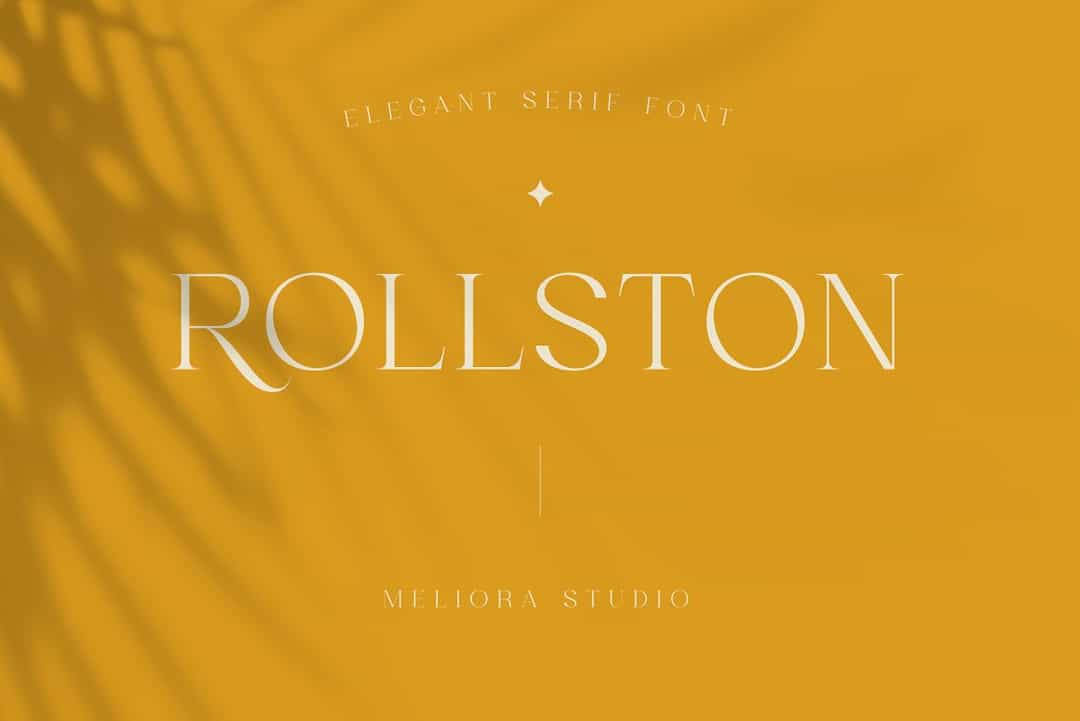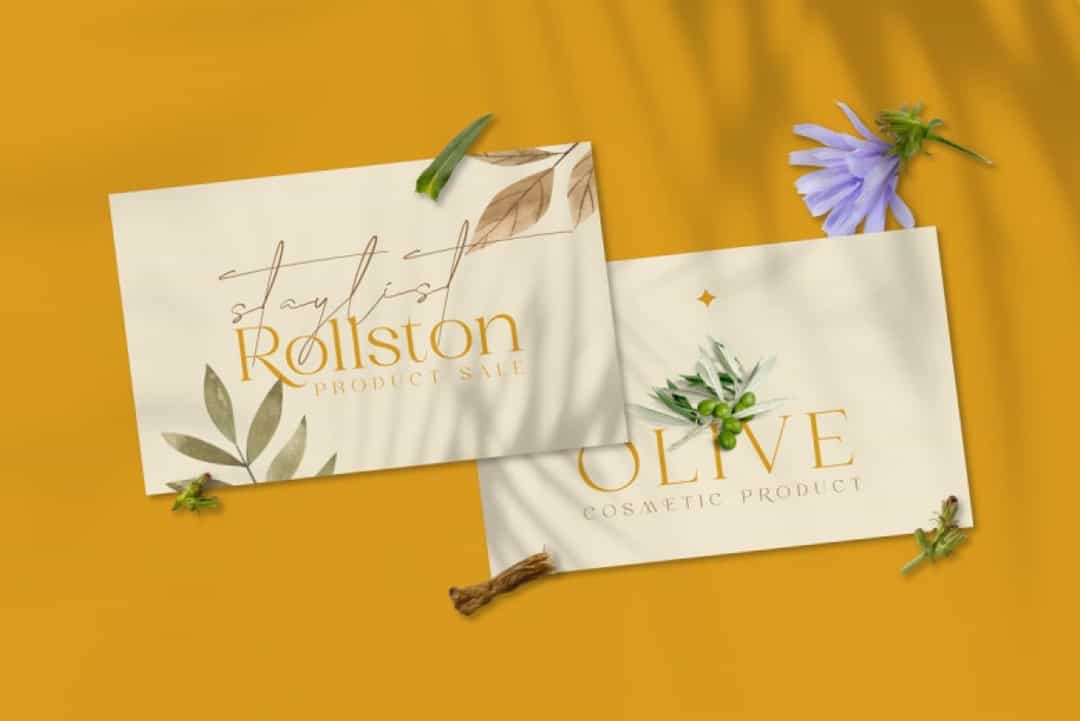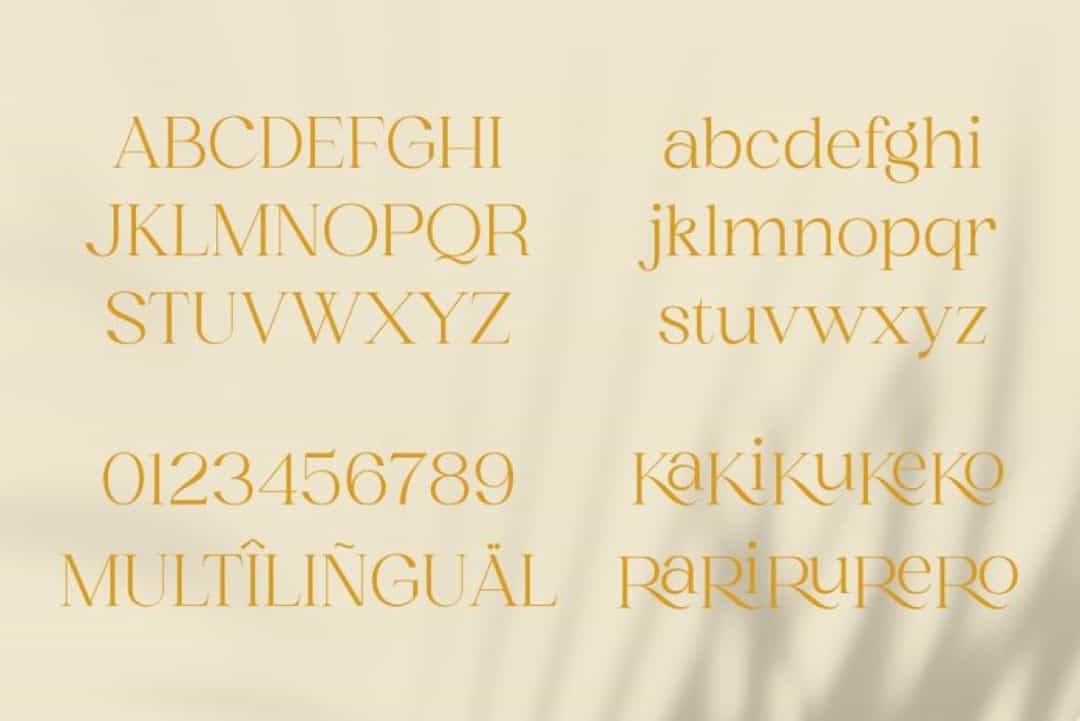
Rollston can be described as an elegant and distinct presentation serif typeface, boasting elegant alternates and ligatures that make this font ideal for every project. There are various ways of using alternative fonts, including Character Map for Windows (for Character Mapping purposes), Nexus Font for Windows (Nexus Font is Windows-only), Font Book on Mac (and this program), or PopChar for both OSs (for both PCs and Macs).